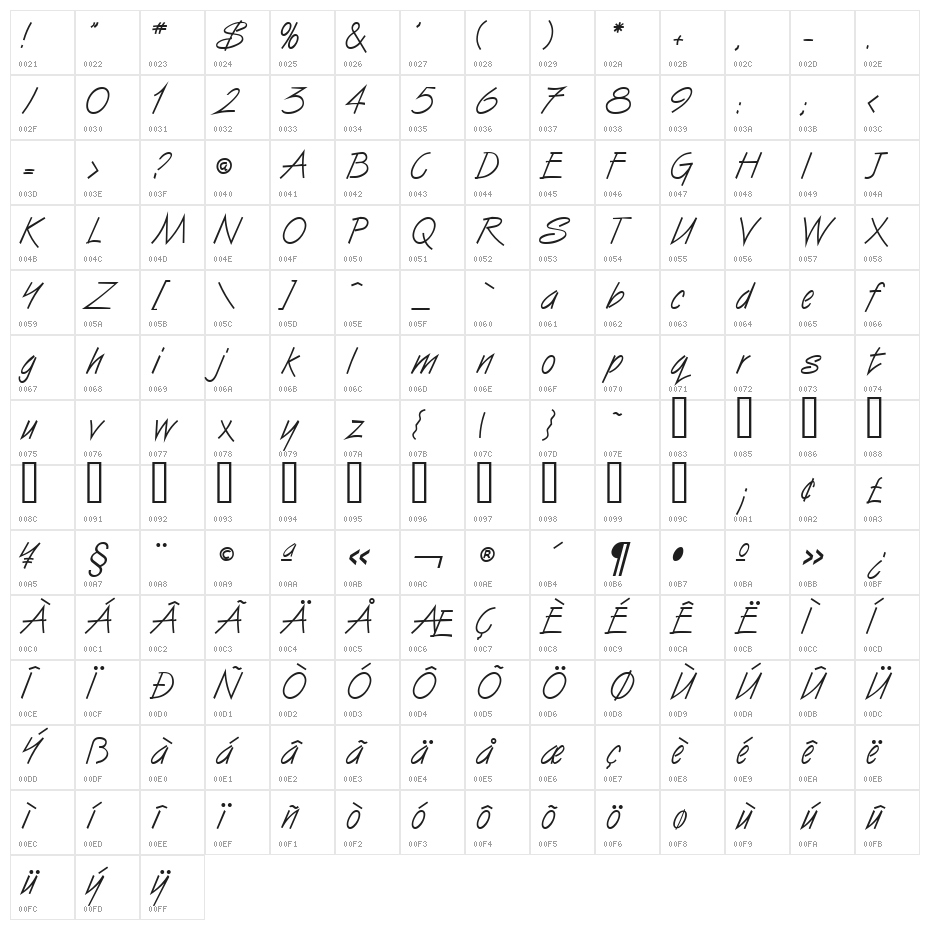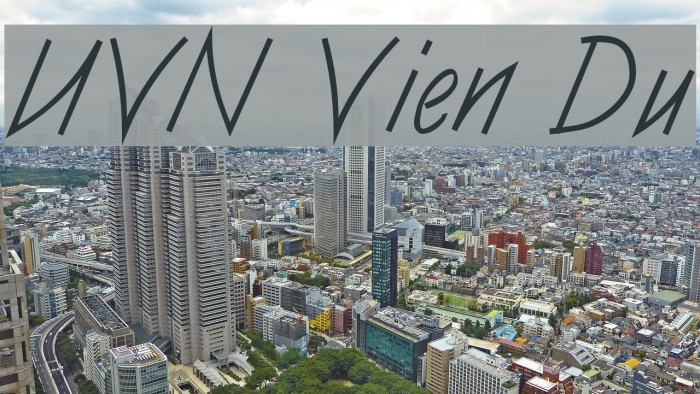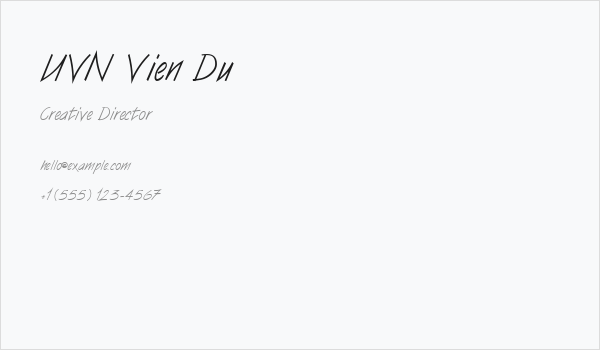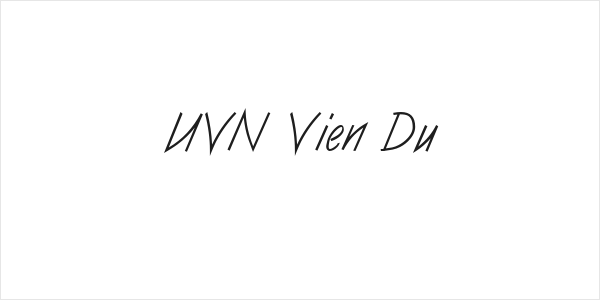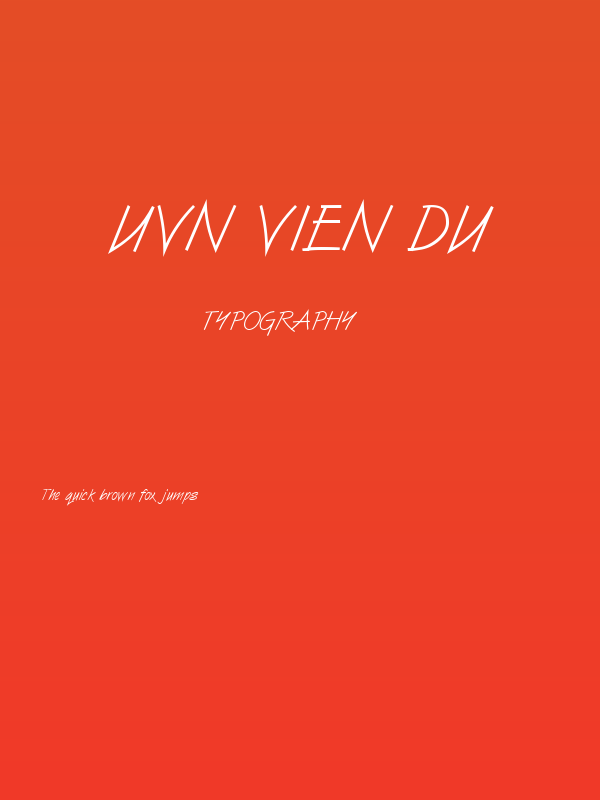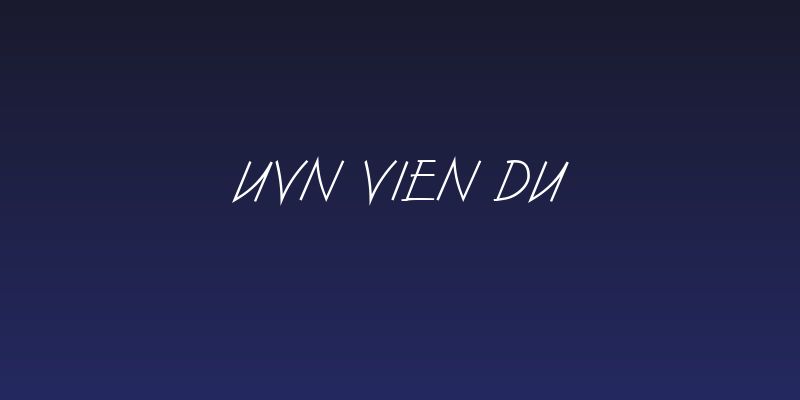
UVN Vien Du Font
UVN Vien Du Description
This font features a dynamic and fluid script style, characterized by its elegant and slightly slanted letterforms. The strokes are smooth and continuous, giving it a handwritten appearance that is both casual and sophisticated. The uppercase letters are tall and slightly narrow, while the lowercase letters maintain a consistent flow, enhancing readability. The numerals and special characters are designed to match the overall aesthetic, ensuring a cohesive look across all text. This font is versatile, suitable for a variety of design projects that require a personal touch.